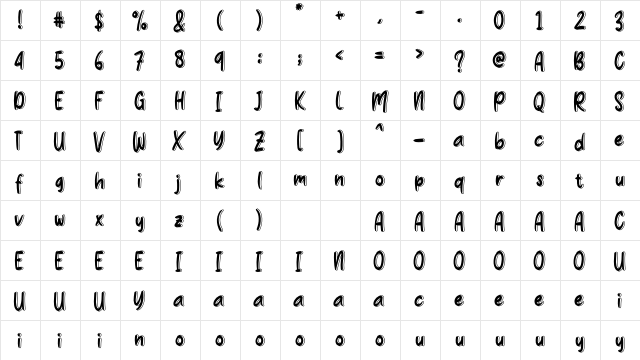
Mango Fresh Regular
Design Context for Mango Fresh Typeface
Mango Fresh is a composed and adaptable typeface that performs quietly and consistently across a wide range of design contexts.
Pro Tip: Use Mango Fresh in both headline and body roles to test its range before committing to a single application.